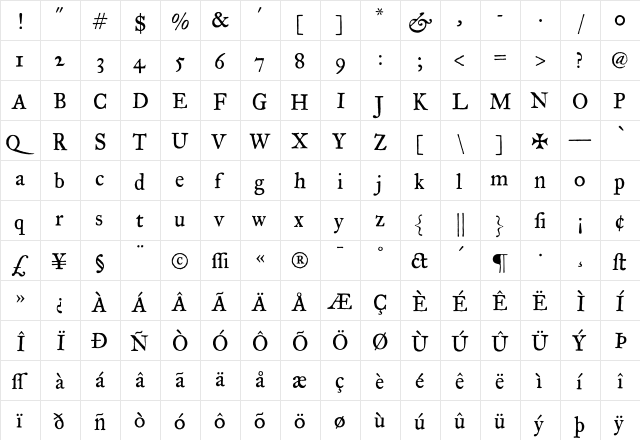
Historical FellTypeRoman
Design Context for Historical Typeface
Historical offers clean, dependable letterforms without strong stylistic allegiance, making it a practical choice for designers who need flexibility.
Pro Tip: Use Historical in both headline and body roles to test its range before committing to a single application.